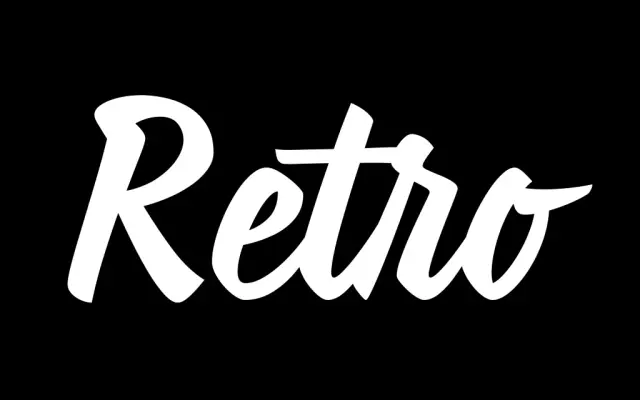
Coco FY
Black Foundry · Bertrand Reguron, Gia Tran, FONTYOU
A condensed vintage script drawn from the hand-lettered tradition of storefront fascia and painted street signs.
Coco FY takes its cues from mid-century commercial lettering, with tightly condensed forms and expressive strokes that recall painted shop fronts rather than calligraphic pen work. A single Regular weight is offered, supported by a thorough set of contextual alternates and stylistic variants to keep repeated letterforms from looking mechanical. Suited to posters, packaging and editorial work where a retro handmade quality is needed without resorting to generic brush scripts.
A condensed, hand-lettered script drawn from the tradition of storefront fascia and painted signage, giving it a distinctly retro, vernacular character rather than a formal calligraphic one.